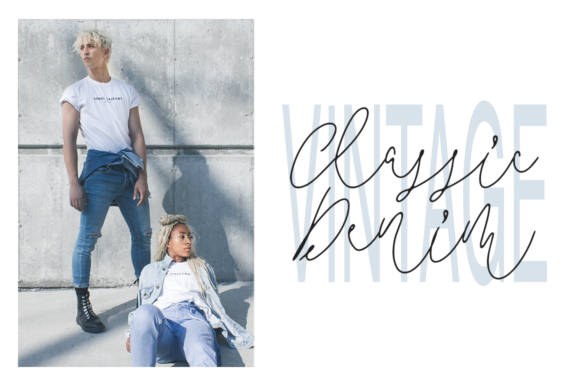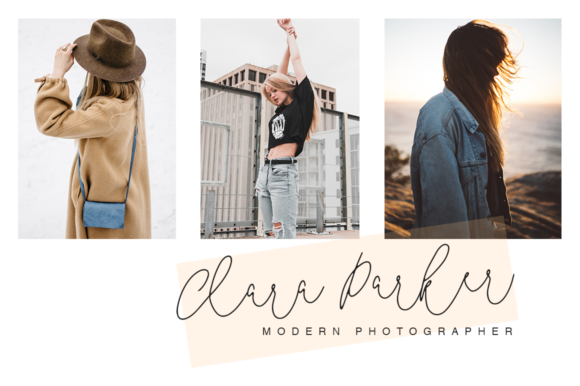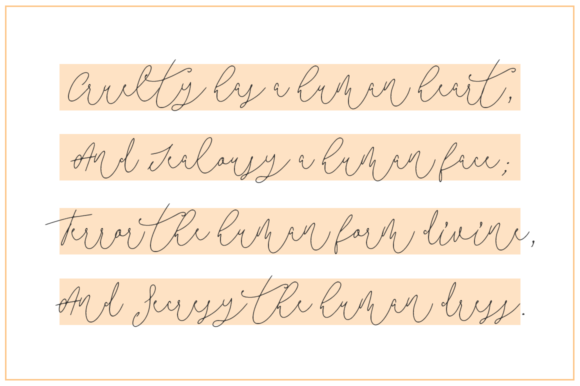
The Magic of Brick Font: Elevating Your Designs with Elegance
I still remember the frustration of working on a design project, hours spent crafting the perfect layout, only to be held back by a font that just didn’t feel right. It was as if the words were flat, lacking the personality and flair that I knew my design deserved. Then, I stumbled upon Brick Font, and it was like a breath of fresh air. This magical script font, with its touch of elegance, instantly transformed my project into a true piece of art. If you’re a designer, crafter, or creative hobbyist looking for that perfect font to elevate your work, you’re in the right place.
A Personal Review of Brick Font
Let’s dive into what makes Brick Font so special and, of course, what quirks it might have.
What I Love About Brick Font ✨
• 💫 Elegant and Magical: Brick Font brings a touch of sophistication and whimsy to any project.
• ✅ Versatile: Perfect for Instagram posts, calligraphy scripts, DIY projects, and more.
• 🌈 Highly Readable: Despite its elegant nature, it’s surprisingly easy to read, even in smaller sizes.
• 🎨 OpenType Features: It comes with a range of glyphs and stylistic alternates that allow for a lot of creativity.
While Brick Font is incredibly versatile, there are a few things to keep in mind:
• 🤔 Limited Use in Very Large Sizes: While it shines in most applications, in very large sizes (like billboards), it might lose some of its finesse.
• ⚠️ Not Ideal for Body Text: Its elegance is best appreciated in headings or short paragraphs. For longer texts, a more straightforward font might be better.
The Backstory of Brick Font
While the exact origins of Brick Font are shrouded in mystery, it’s clear that it was designed with the intention of bringing a bit of magic to the world of typography. Imagine a designer, sitting in a cozy studio, surrounded by vintage typewriters and scraps of elegant stationery, determined to create a font that captures the essence of whimsy and sophistication. That’s Brick Font for you – a labor of love, meant to inspire creativity and elevate designs.
Font Name Brick Font
Author BennyDesigns
Is Brick Font suitable for body text? No, it’s best used for headings or short paragraphs where its elegance can shine.
Does Brick Font include OpenType features? Yes, it comes with a range of glyphs and stylistic alternates that you can use to customize your text.
Is Brick Font easy to read? Yes, despite its elegant nature, Brick Font maintains a high level of readability, even in smaller sizes.
Brick Font is more than just a script font – it’s a tool to transform your creative ideas into stunning pieces of art. Whether you’re designing for Instagram, crafting DIY projects, or simply looking for a font that adds a touch of elegance to your work, Brick Font is an excellent choice. With its magical feel and versatile application, it’s sure to become a favorite in your design arsenal.